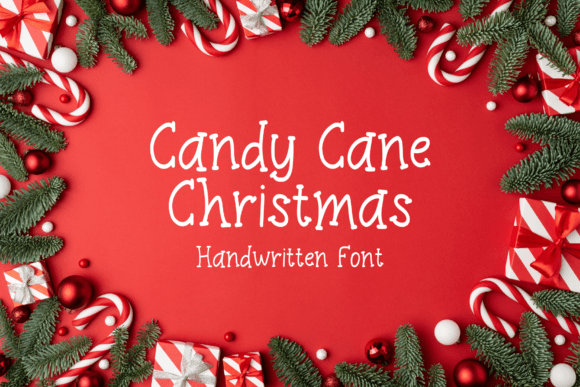
Candy Cane Font: The Sweetest Addition to Your Design Toolbox
Are you looking for a font that adds a touch of fun and whimsy to your designs? Look no further than the Candy Cane font! This sweet and friendly handwritten display font is perfect for crafts, digital design, presentations, and a wide range of other creative projects. In this article, we’ll dive into the features and benefits of the Candy Cane font, and explore the many ways you can use it to add a dash of excitement to your work.
A Font that’s as Sweet as it is Versatile
The Candy Cane font is a delightful addition to any designer’s toolbox. Its playful, handwritten style is reminiscent of childhood treats and happy memories, making it the perfect choice for projects that need a fun and lighthearted touch. Whether you’re creating a wedding invitation, a poster, or a digital graphic, this font is sure to bring a smile to your audience’s faces.
One of the best things about the Candy Cane font is its versatility. It’s ideal for use in a wide range of applications, including:
- Crafts: Add a personal touch to your handmade crafts, such as cards, gift tags, and scrapbook pages.
- Digital design: Use the Candy Cane font to create eye-catching social media graphics, blog headers, and website elements.
- Presentations: Add a fun and engaging touch to your presentations, reports, and slideshows.
- Wedding invitations: Make your wedding stationery stand out with a sweet and playful font.
- Cards: Create one-of-a-kind greeting cards for birthdays, holidays, and special occasions.
- Comic book style: Add a touch of whimsy to your comic book art, illustrations, and graphic novels.
- Games: Use the Candy Cane font to create engaging and interactive game titles, menus, and UI elements.
- T-shirts and apparel: Design fun and playful t-shirts, hoodies, and other apparel with the Candy Cane font.
- Posters and movie titles: Create eye-catching posters and movie titles that are sure to grab attention.
Why Designers and Crafters Love the Candy Cane Font
So why do designers and crafters love the Candy Cane font? Here are just a few reasons:
- Easy to read: Despite its playful style, the Candy Cane font is easy to read and understand, making it perfect for use in a wide range of applications.
- Highly versatile: The Candy Cane font can be used in both digital and print applications, making it a great addition to any designer’s toolbox.
- Fun and engaging: The Candy Cane font adds a touch of fun and whimsy to any design, making it perfect for projects that need to engage and delight audiences.
- Perfect for kids and adults alike: The Candy Cane font is a great choice for projects aimed at kids, but it’s also fun and playful enough for adults to enjoy.
Tips for Using the Candy Cane Font
Here are a few tips for getting the most out of the Candy Cane font:
- Use it sparingly: While the Candy Cane font is fun and playful, it can be overwhelming if used too much. Use it sparingly to add a touch of whimsy to your designs.
- Pair it with other fonts: The Candy Cane font pairs well with a wide range of other fonts, including serif and sans-serif fonts. Experiment with different pairings to find the perfect combination for your project.
- Experiment with colors: The Candy Cane font looks great in a wide range of colors, from bright and bold to pastel and soft. Experiment with different colors to find the perfect look for your project.
The Candy Cane font is a sweet and friendly addition to any designer’s toolbox. Its playful, handwritten style is perfect for adding a touch of fun and whimsy to a wide range of creative projects. Whether you’re a designer, crafter, or teacher, the Candy Cane font is sure to delight your audience and bring a smile to their faces. So why not give it a try and see the magic for yourself?